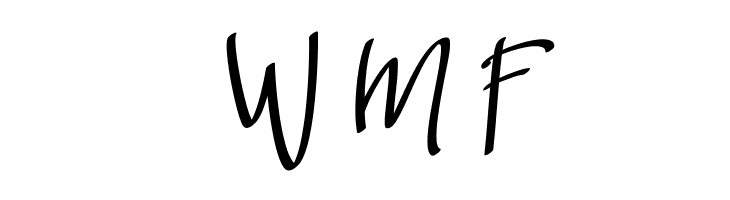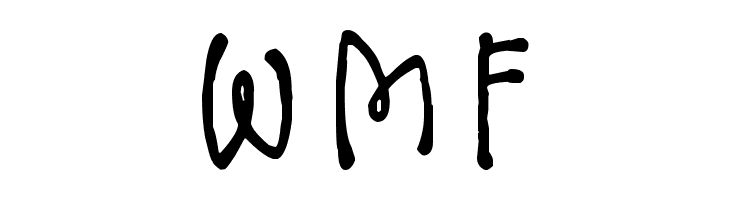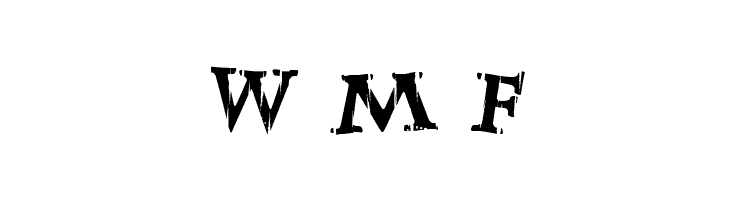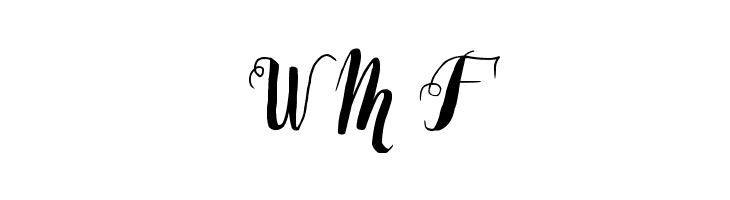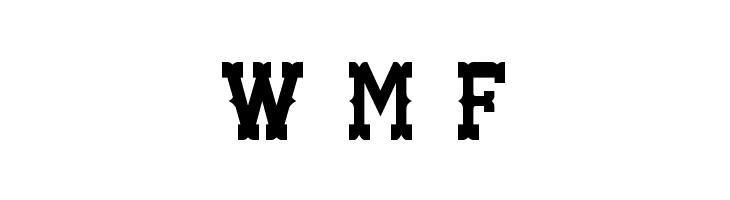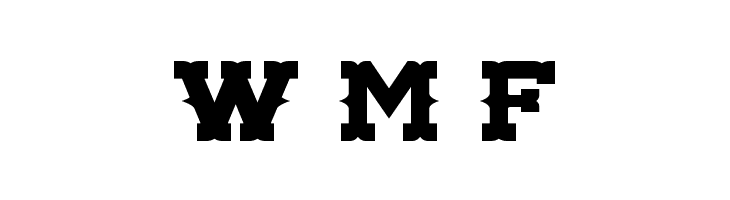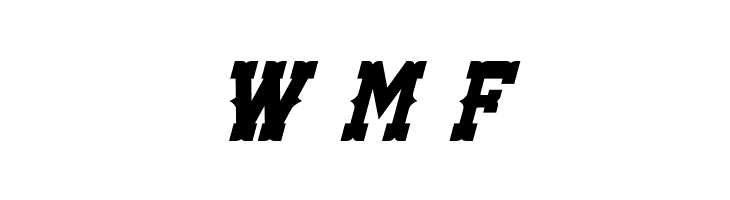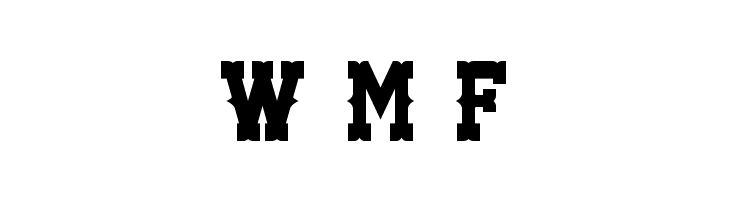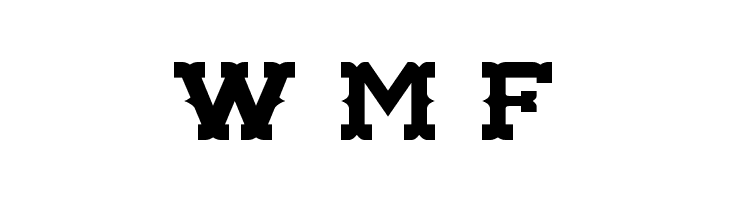
• Landing Surely
A lively, handwritten-style font with fluid, slightly irregular strokes.
• Larger Mime
A playful, artistic handwritten font with bold, expressive strokes.
• LaserMetal
An expressive, cursive script font with ornate swashes and flourishes.
• Lassiter
A bold, blocky font with a vintage, industrial feel.
• Lassiter Bold
A bold, vintage-style font with Western-inspired serifs and decorative elements.
• Lassiter Bold Italic
A bold, italic, and dynamic font with high contrast and decorative elements.
• Lassiter Extended
A bold, Western-inspired font with sharp, decorative elements.
• Lassiter Extended Bold
A bold, decorative font with unique star embellishments and extended characters.
• Lassiter Italic
A bold, italic font with angular serifs and a dynamic, energetic style.
• LateDrank
A bold, distressed font with a grunge aesthetic and dynamic skew.